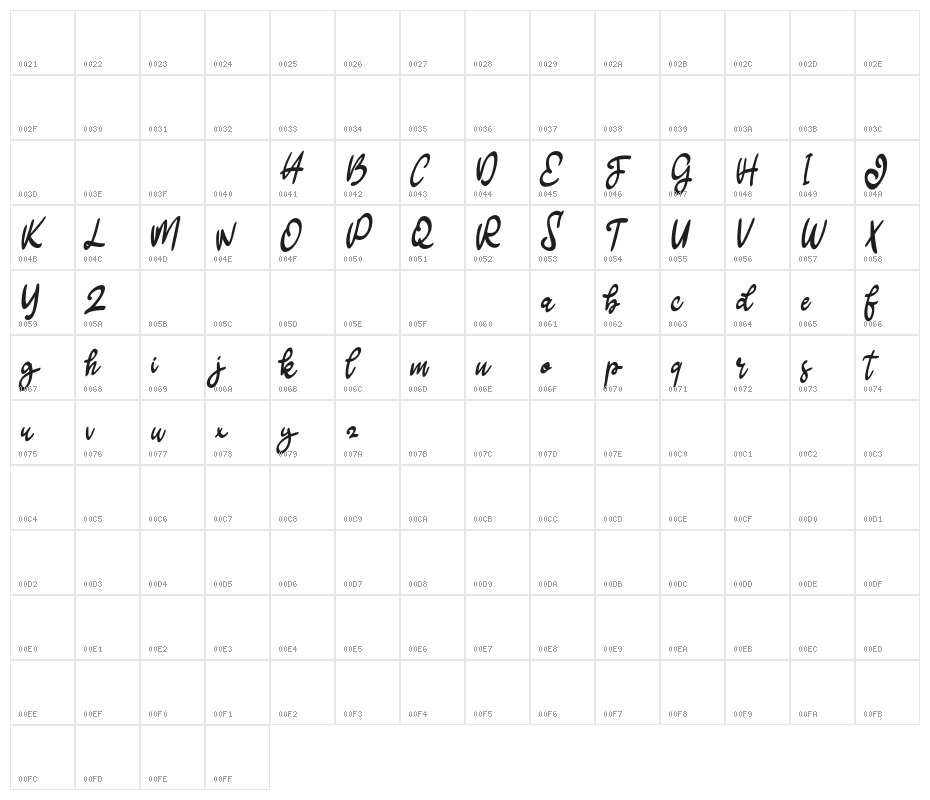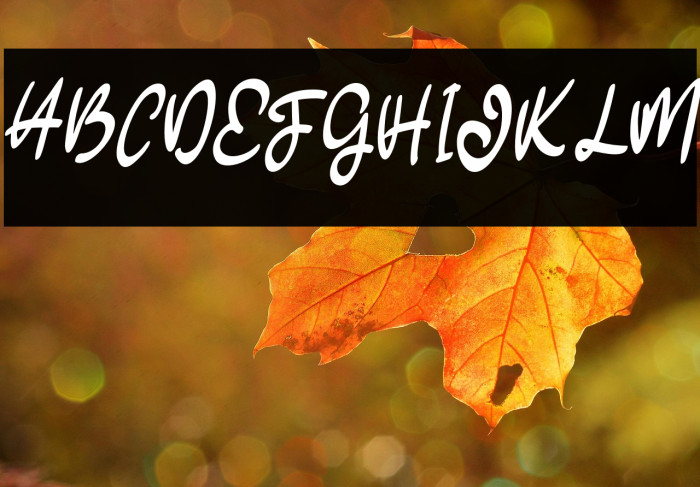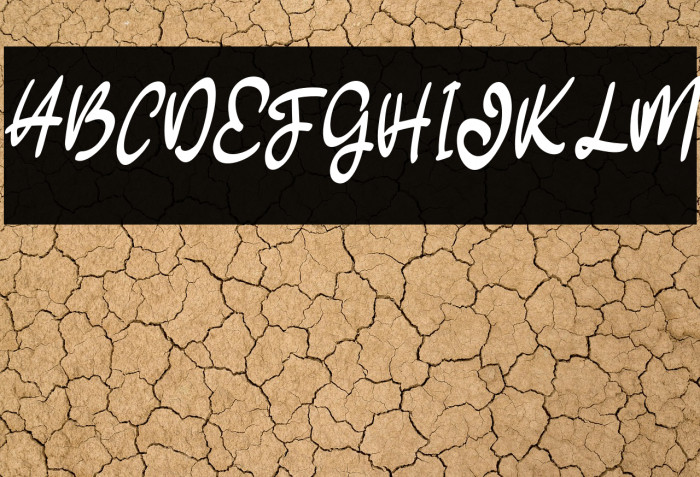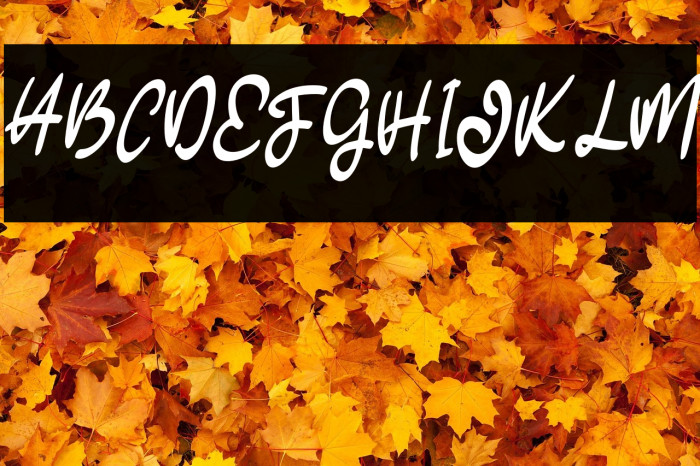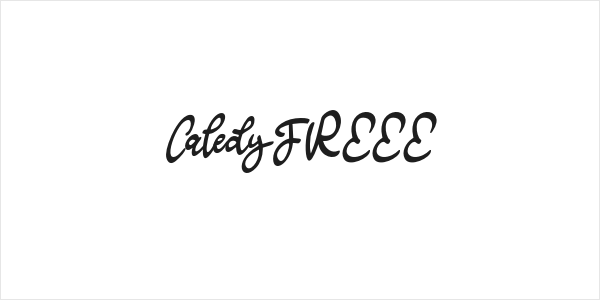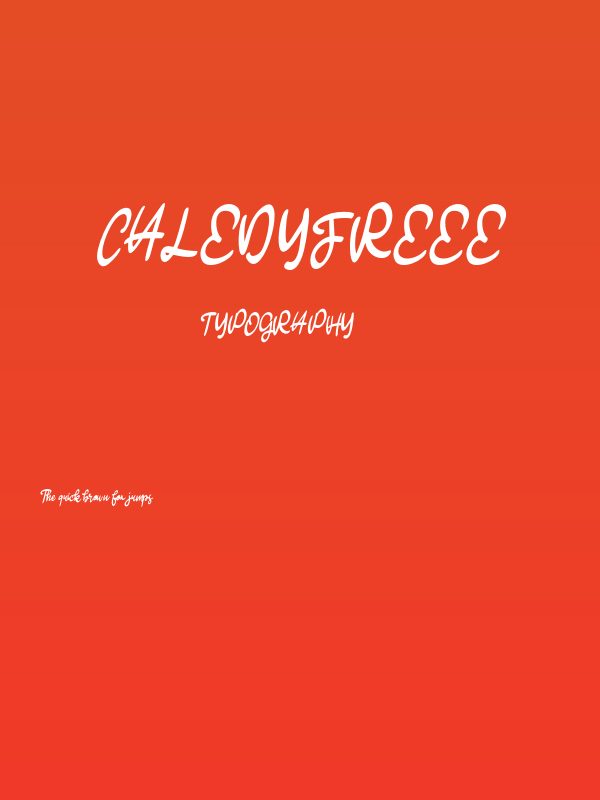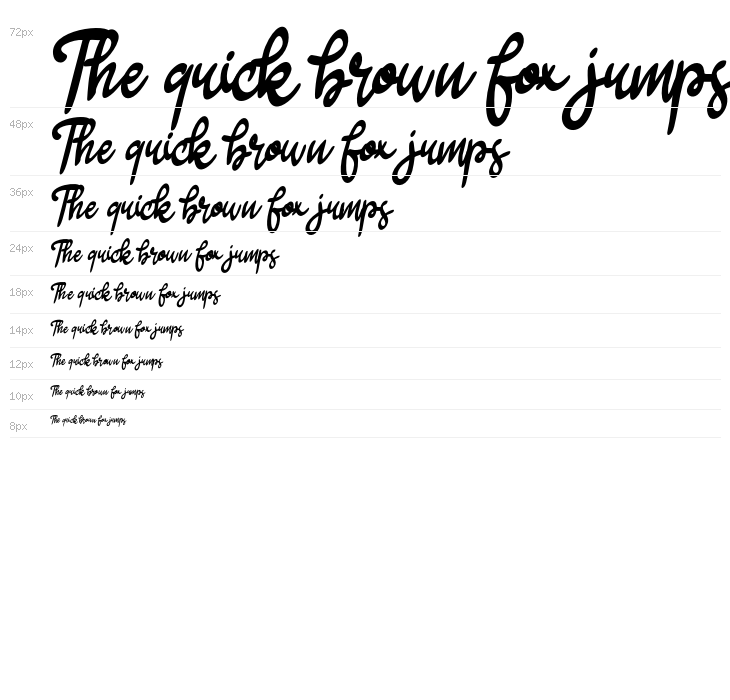
CaledyFREEE Font
CaledyFREEE Description
This font exhibits a dynamic and fluid script style, characterized by its bold and expressive strokes. The letters are interconnected, creating a sense of continuity and flow, reminiscent of traditional calligraphy. The uppercase letters are elegantly curved, while the lowercase letters maintain a consistent rhythm, enhancing readability. The numbers and special characters complement the overall design, maintaining the same fluidity and style. This font is ideal for projects that require a personal touch or a sense of elegance and sophistication.
| Overall Style | Elegant, Calligraphic |
| Proposed Projects | Ideal for wedding invitations, greeting cards, branding, and elegant logo designs. |